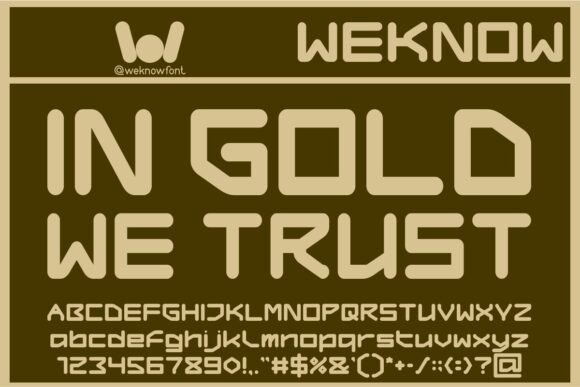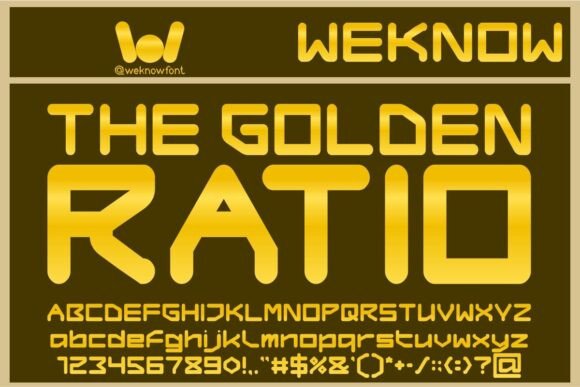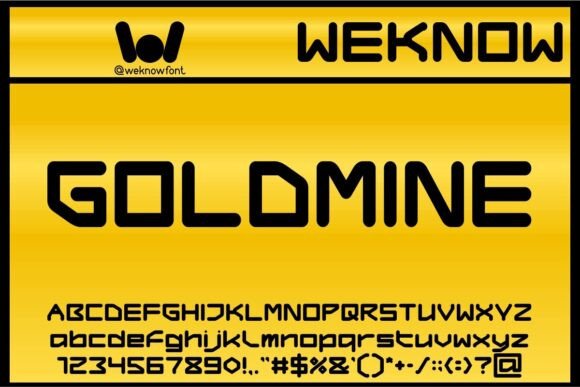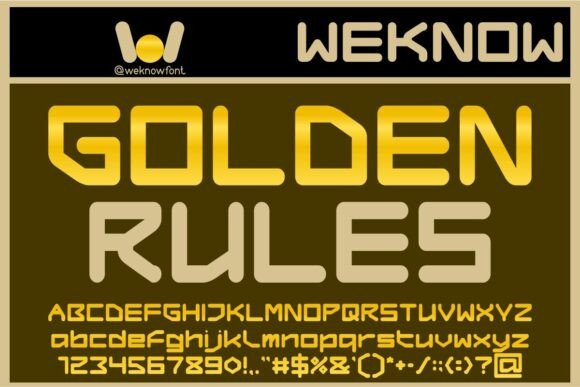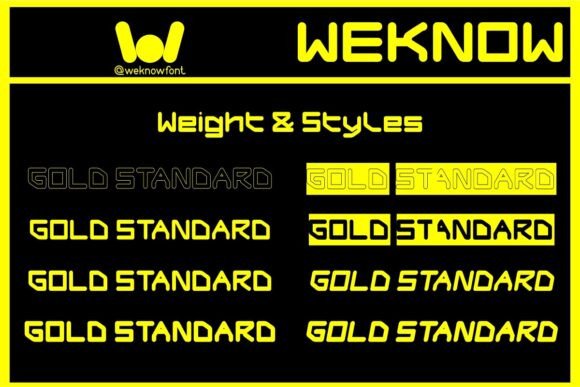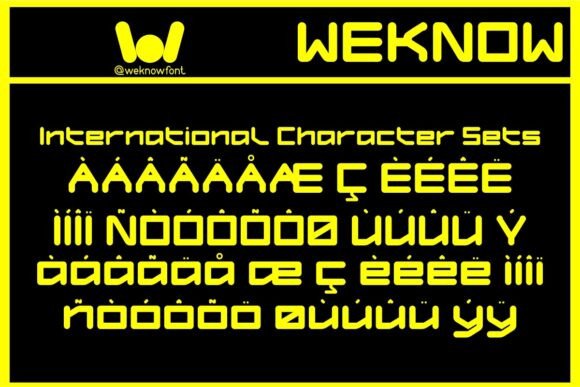
Introduction to Gold Standard Font
Elevate your next design project into the future with the Gold Standard font.
This cutting-edge, high-tech display font adds a stylishly modern and futuristic touch to any creative adventure Its sleek techno-sci-fi aesthetic makes it an ideal choice to accentuate logos, logotypes, and corporate and brand identities.
Key Features of Gold Standard Font
Why Choose Gold Standard Font?